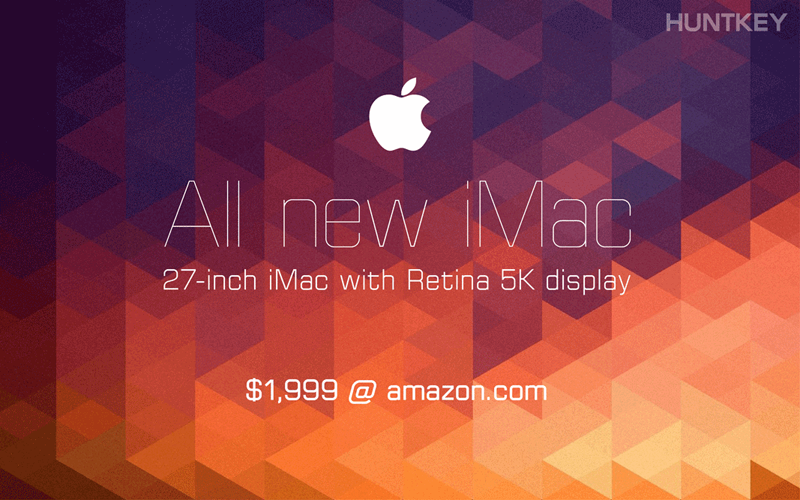
Font name: | Huntkey |
Author: | Nirmal Biswas |
Note by Nirmal Biswas | |
Proud to present my newest typeface called Huntkey. A contemporary, square sans family in 8 weights. 261 glyphs in each version with all numerals, ligatures, punctuations, signs and symbols and some extra characters. Condensed, wide, Dotted and Italics for all in progress. Perfect for branding and identity projects, headlines for books, newspapers, magazines and billboards; both for print and online. Italics and more widths coming soon. |